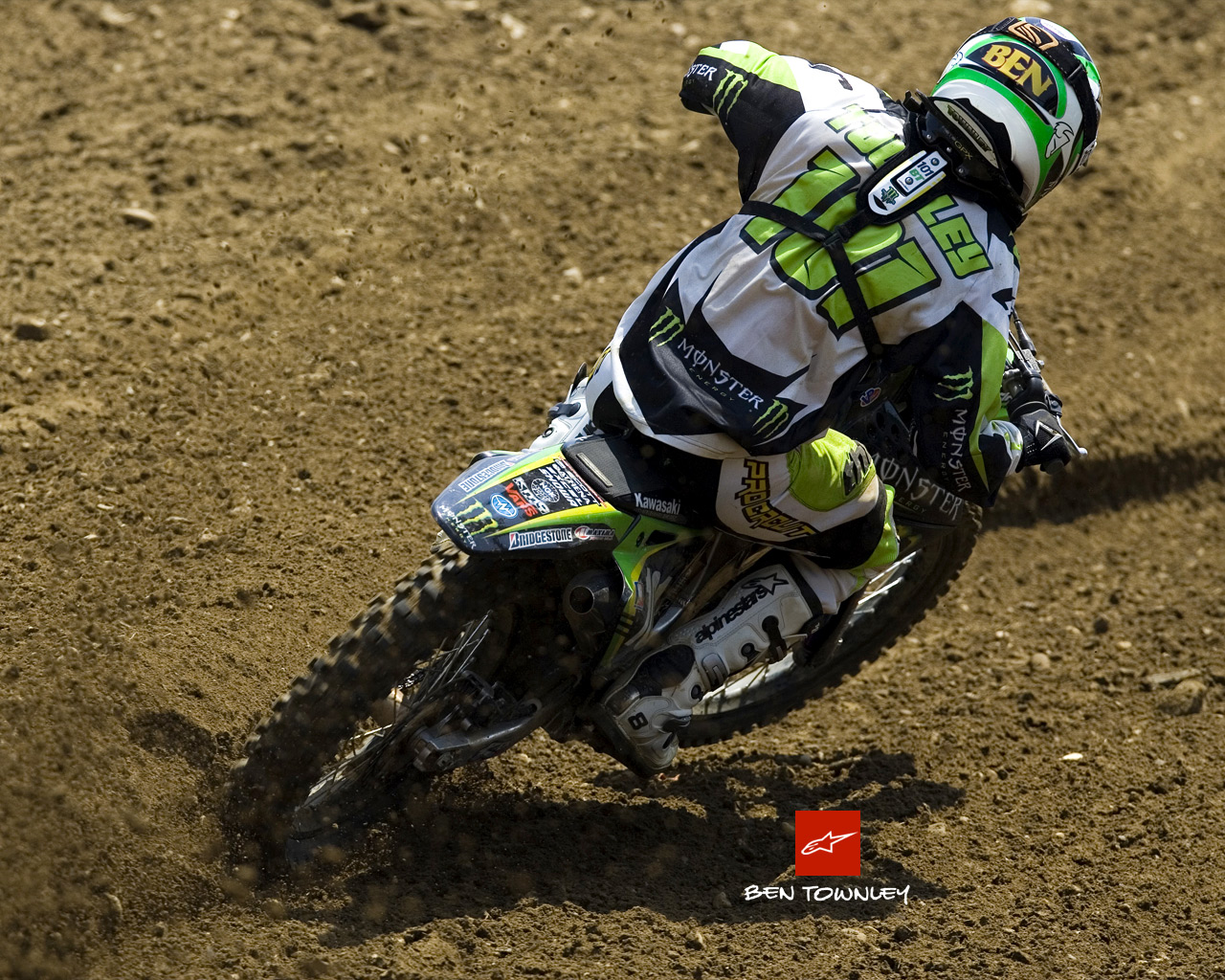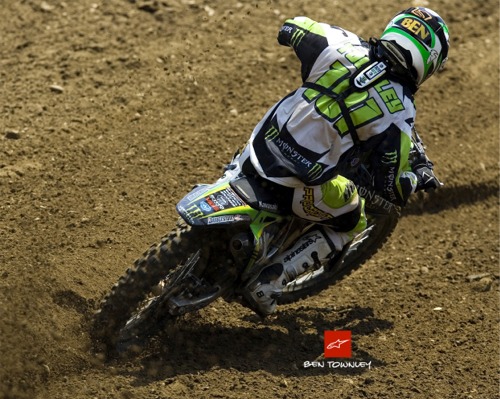
Font ID Please
Anyone? Please. Hoping to get a shirt printed for tomorrow night.
The pic is really hard to see.
I assume you are talking about the name on the jersey, not the Monster ad.
The font is similar to Sugargirl:
also Velvenda:
Anybody know the font of the number? with the slits in it? Customer is very precise in what he wants.
Take any slab serif font with a squarish "0" and squish it, tighten the kerning, then outline it.
All you have to do after that is make the slashes on the original numbers via some clever node editing. Just pull the nodes into the letters to make the slashes.